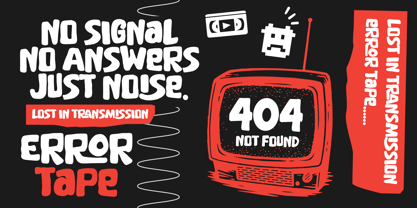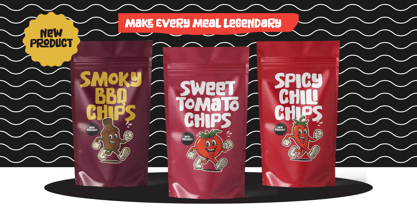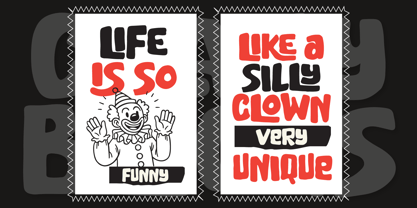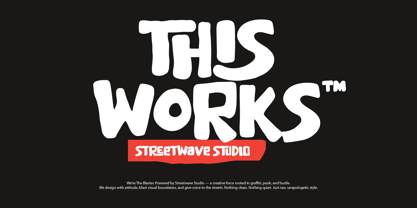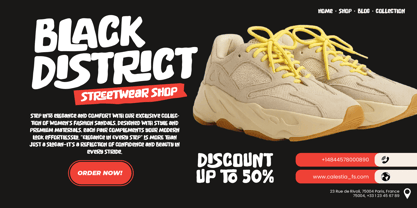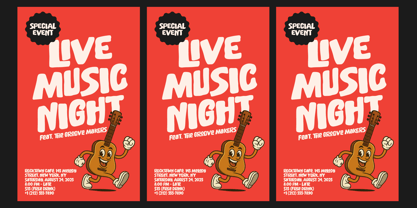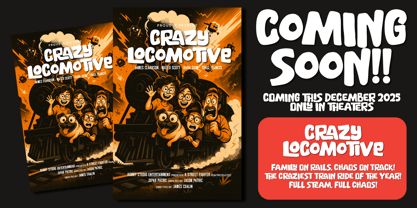
Crazy Blocks
by Ronny Studio
The Crazy Blocks Font Family was designed by Rony Rizki Jaya and published by Ronny Studio. Crazy Blocks contains 1 styles. More about this family
Crazy Blocks is a bold display font with a chunky, playful, and characterful style. It's perfect for designs that want to appear unique, strong, and eye-catching. Its quirky letterforms create a modern, retro feel that's perfect for a variety of design needs. Font Features: * Bold handcrafted style * Playful & quirky letterforms * Uppercase, lowercase, ligature, alternate, numbers & punctuation * Multilingual support * PUA Encoded Perfect For: * Posters, flyers, event promotions * Music and festival graphics * Branding & logos * Food & product packaging * Streetwear & merchandise * Retro-inspired projects